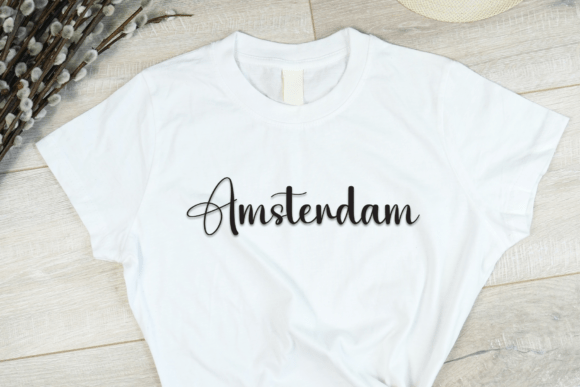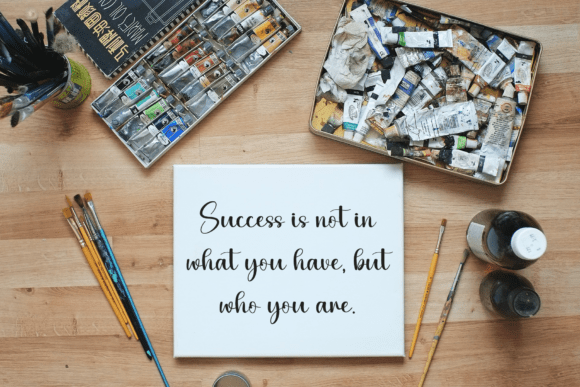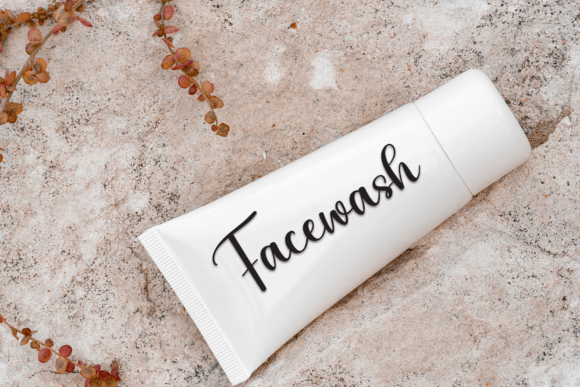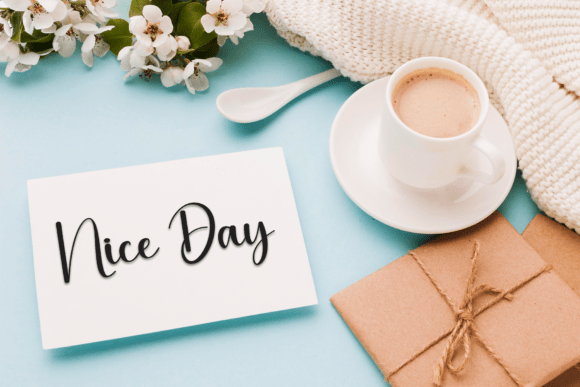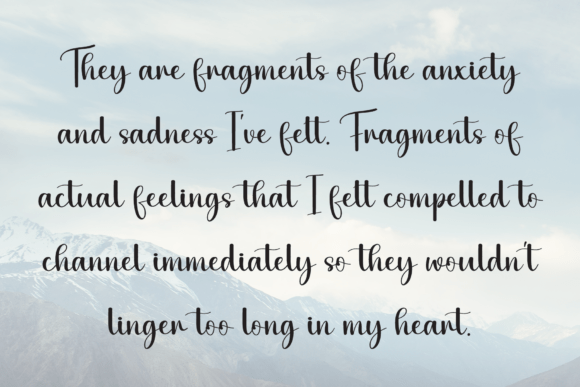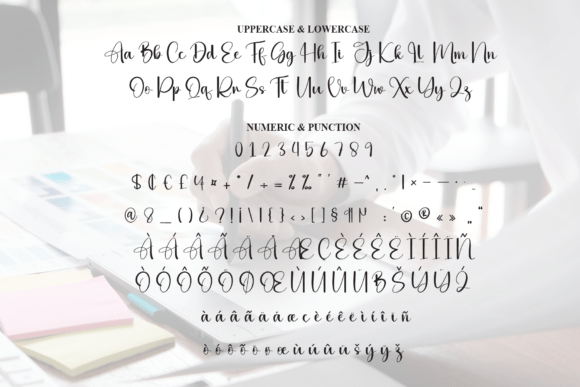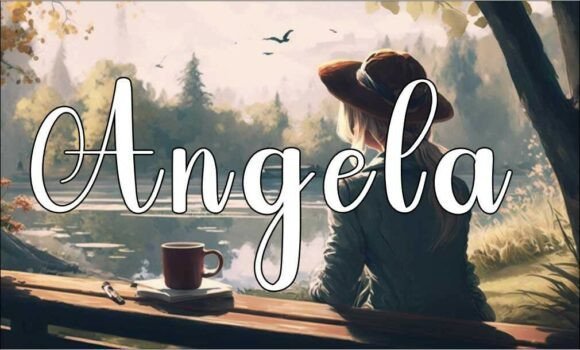
A New Chapter in Typography: Introducing Autography Font
There’s something magical about the first draft of a handwritten letter. The scribbles, the doodles, the personality that seeps through every curve and line – it’s a reflection of the writer’s soul. As designers, we strive to capture that same essence in our digital creations. That’s why we’re excited to introduce the Autography Font, a charmingly sincere display font that exudes warmth and personality.
This delightful font is designed to breathe life and joviality into your designs, making it perfect for crafting heartwarming wedding invitations, creating eye-catching cards, or designing captivating graphics. As a designer, you’ll appreciate the Autography Font’s unique blend of playfulness and friendliness, adding a genuine touch to your creative projects. Whether you’re a seasoned pro or just starting out, this enchanting font is sure to become your go-to companion for all your design needs.
Autography Font Key Features
- Font Family: Autography Font is a script font designed to mimic handwriting, ideal for creating a personal and elegant feel in typography.
- Character Set: Includes a comprehensive set of characters, including uppercase and lowercase letters, numerals, and punctuation marks.
- Unique Characteristics: Features a natural, flowing script style with subtle variations in line width and letterform, giving it a unique and personal touch.
- Font Weight and Style: Available in Regular, Italic, Bold, and Bold Italic styles, offering flexibility for different design applications and moods.
Designer Review: Autography Font
As a designer, I was excited to dive into the Autography font and see what it had to offer. Overall, I was pleasantly surprised by its unique charm and versatility.
- Unique, handwritten feel: Autography font has a distinct, personal touch that’s perfect for projects where you want to convey a sense of personality and creativity.
- Highly legible: Despite its cursive nature, Autography is surprisingly easy to read, making it a great choice for body text and other large blocks of copy.
- Great for creative projects: From logos and branding to invitations and social media graphics, Autography font is a great choice for any project where you want to add a touch of whimsy and flair.
- Limited font sizes: While Autography looks great at larger font sizes, it can become distorted and difficult to read at smaller sizes.
- Not ideal for formal or professional projects: While Autography is perfect for creative projects, it may not be the best choice for formal or professional projects where a more traditional, serious font is preferred.
Overall, I’d give Autography font 4 out of 5 stars. Its unique charm and high legibility make it a great choice for creative projects, but its limitations may make it less suitable for more formal or professional work.